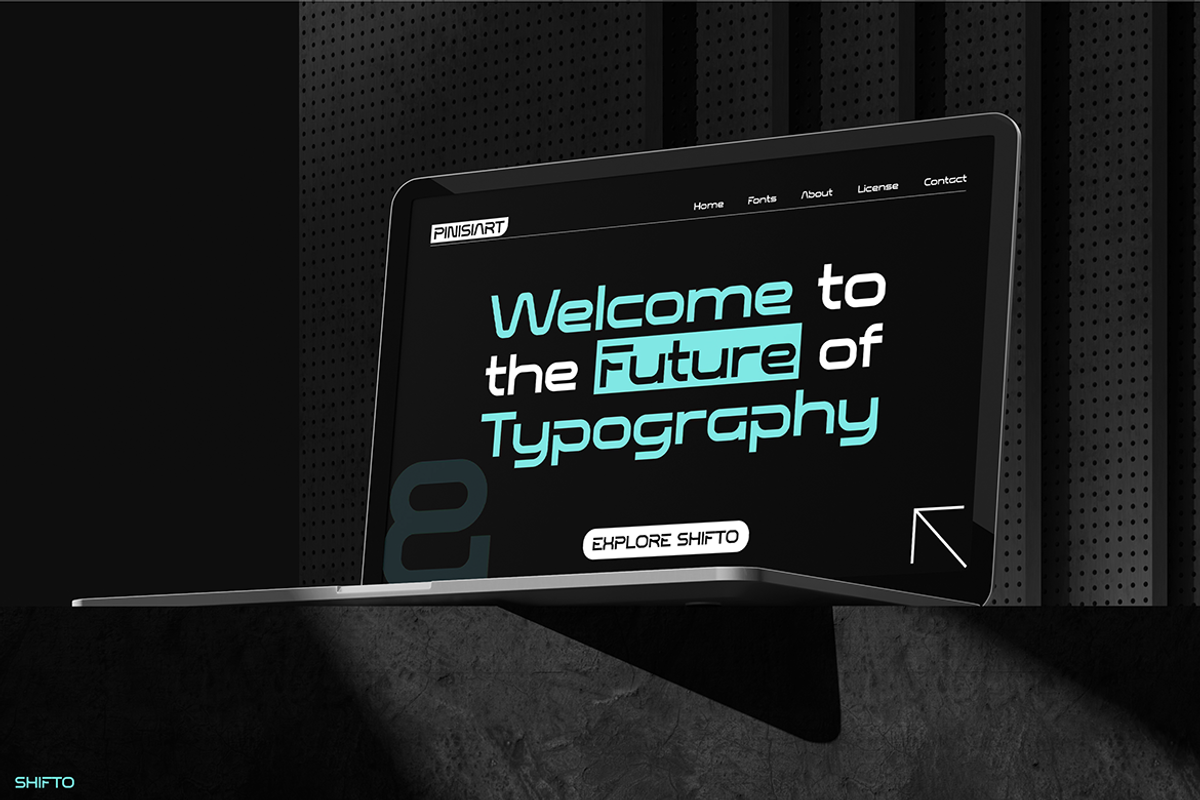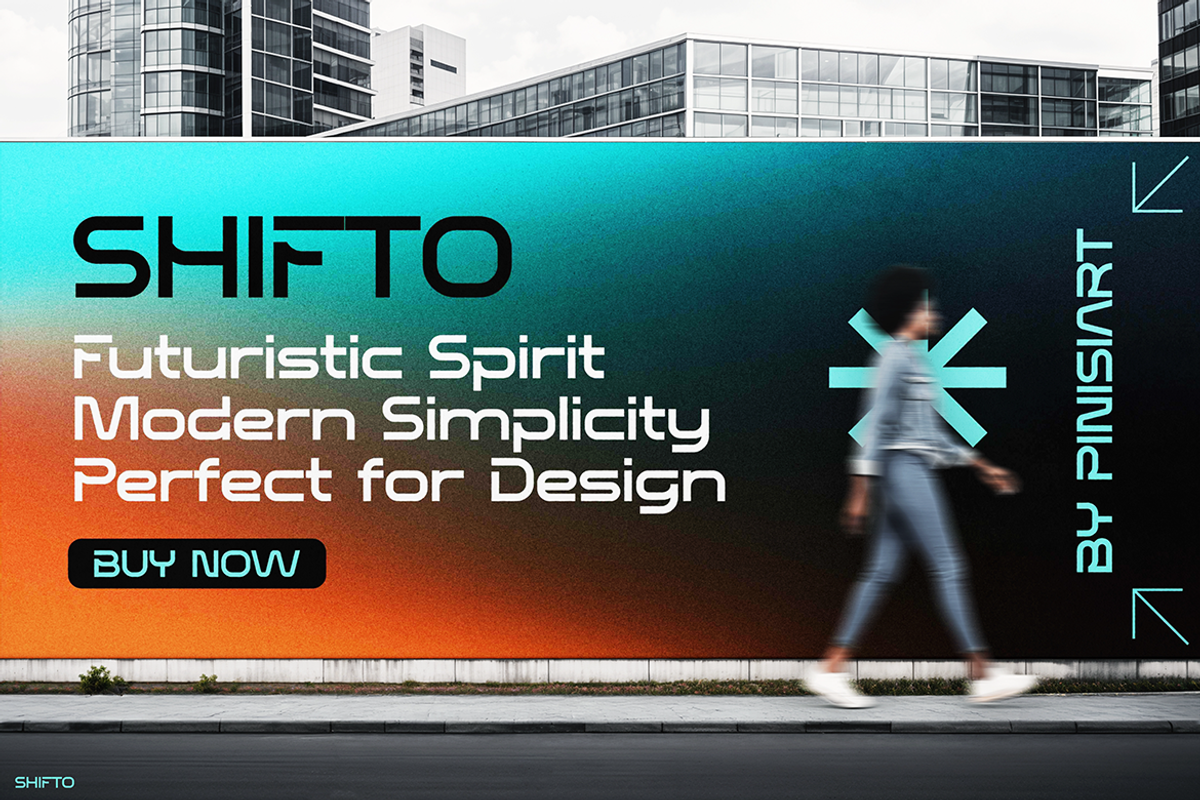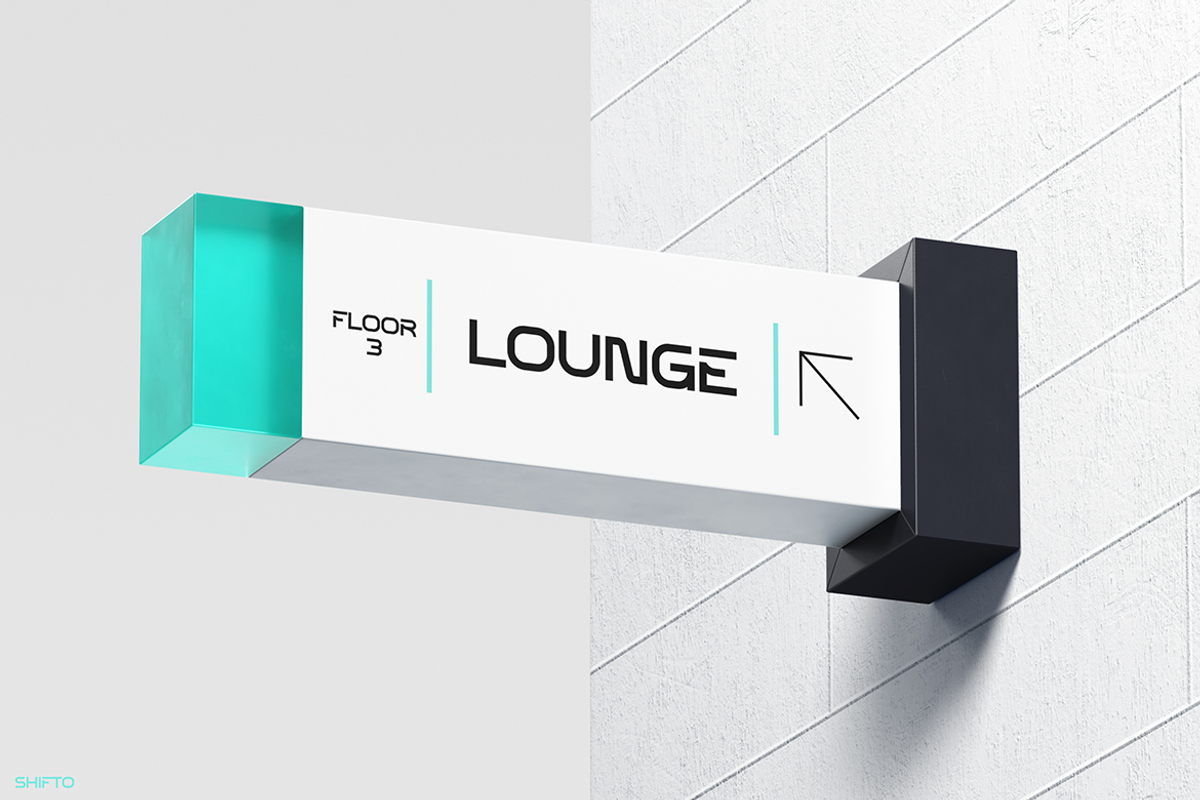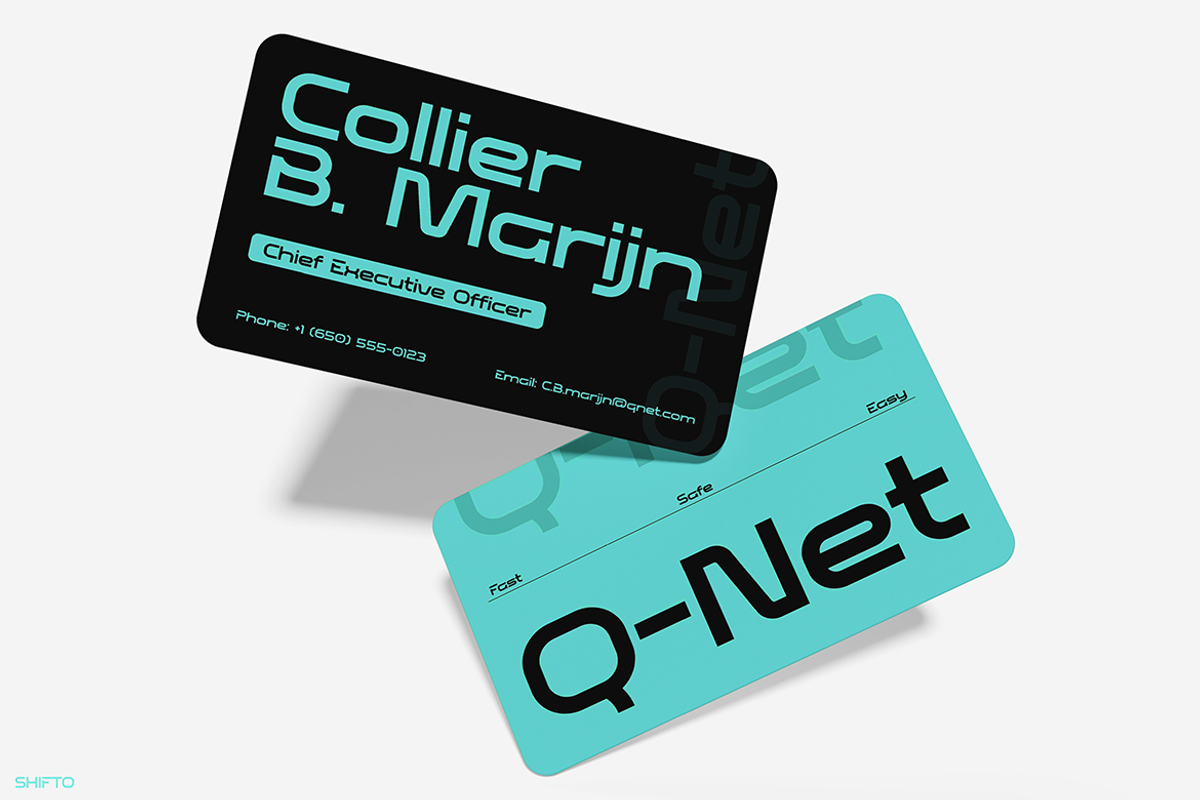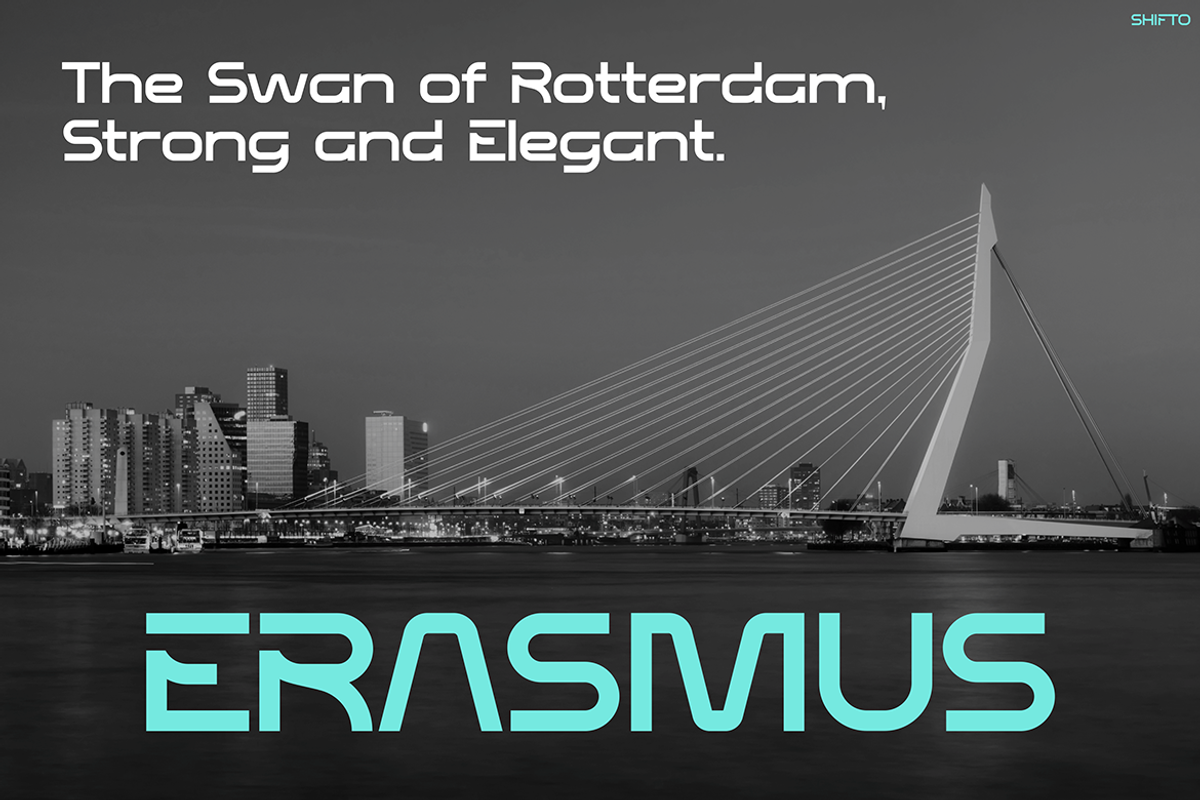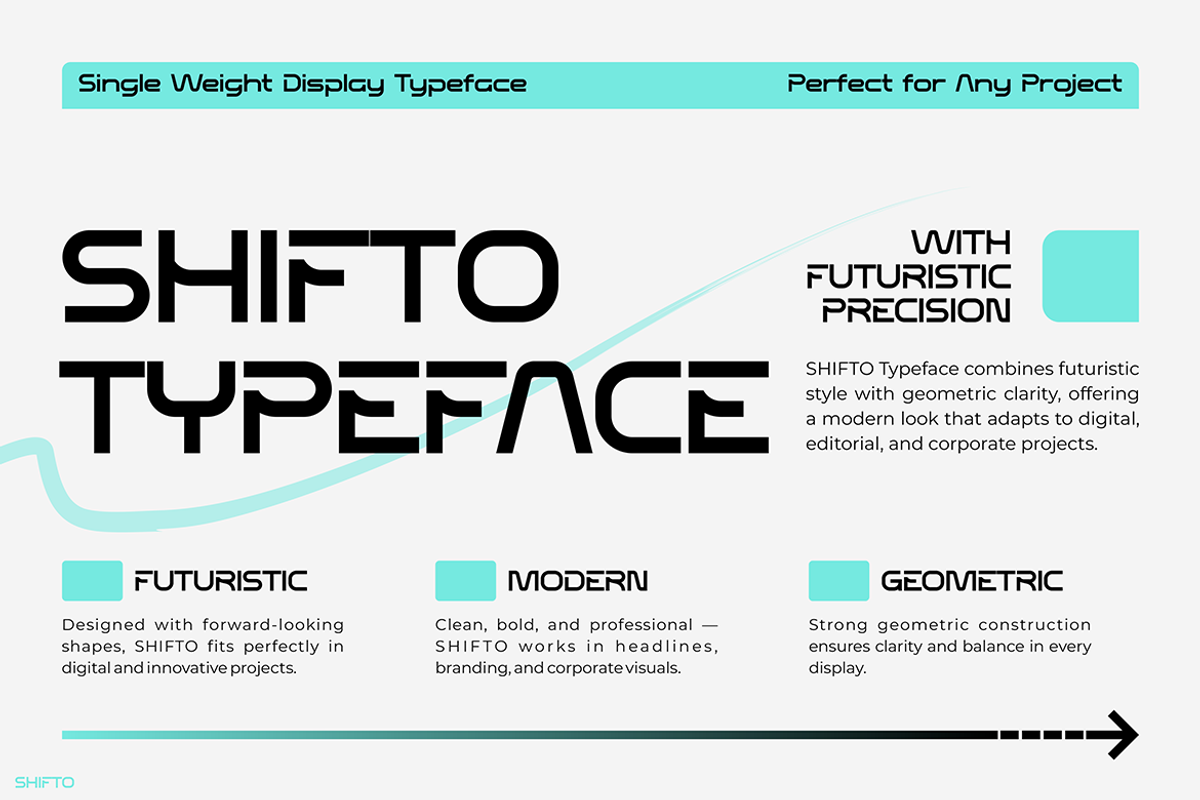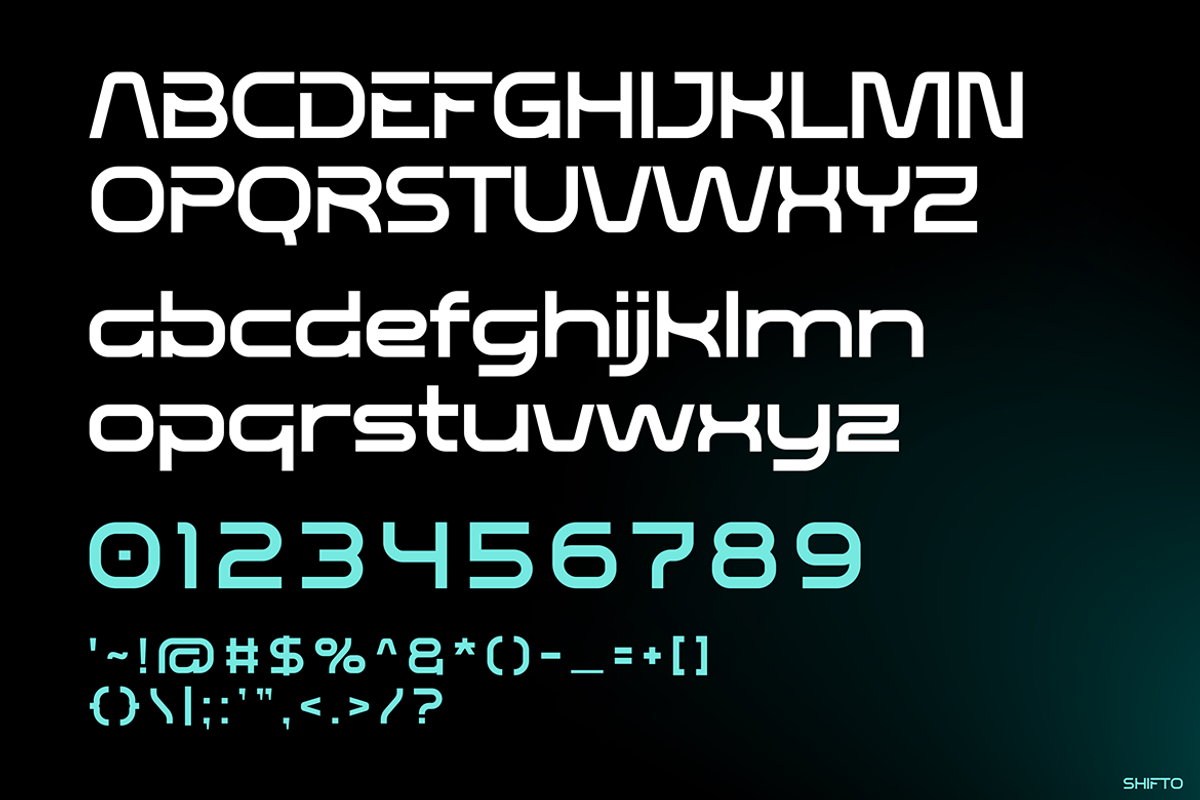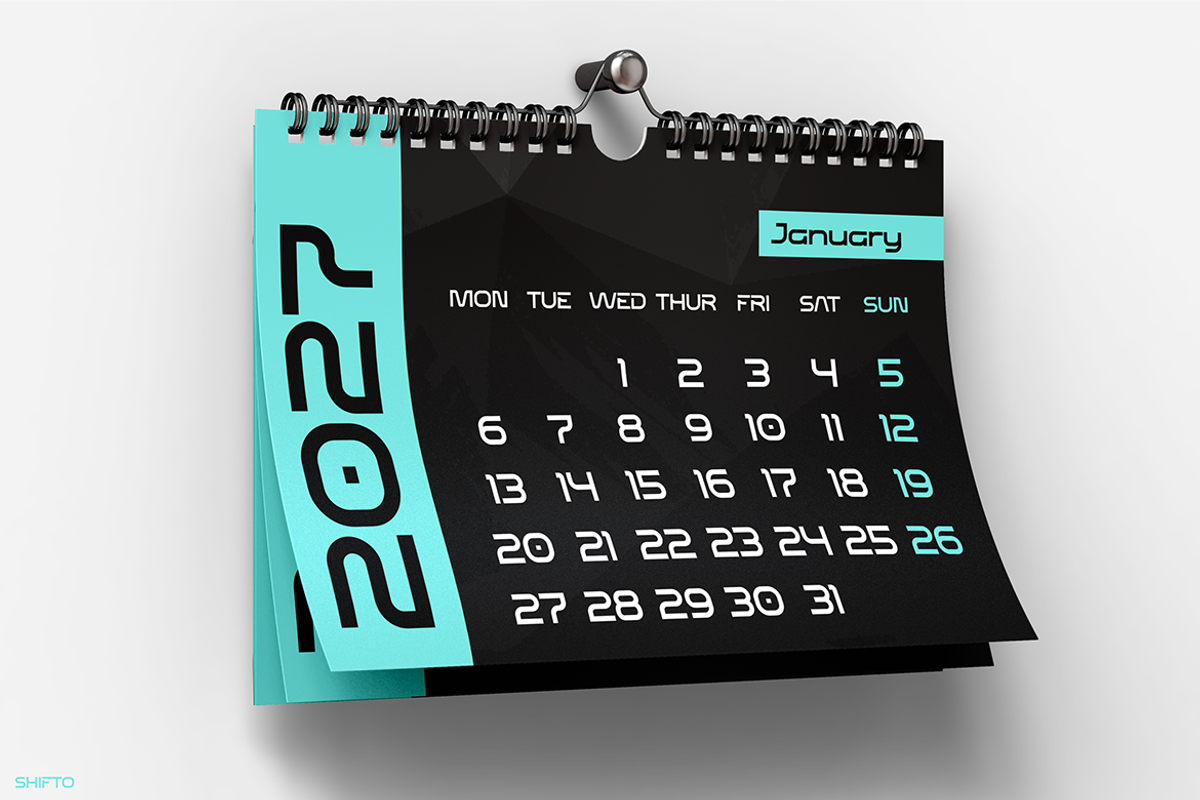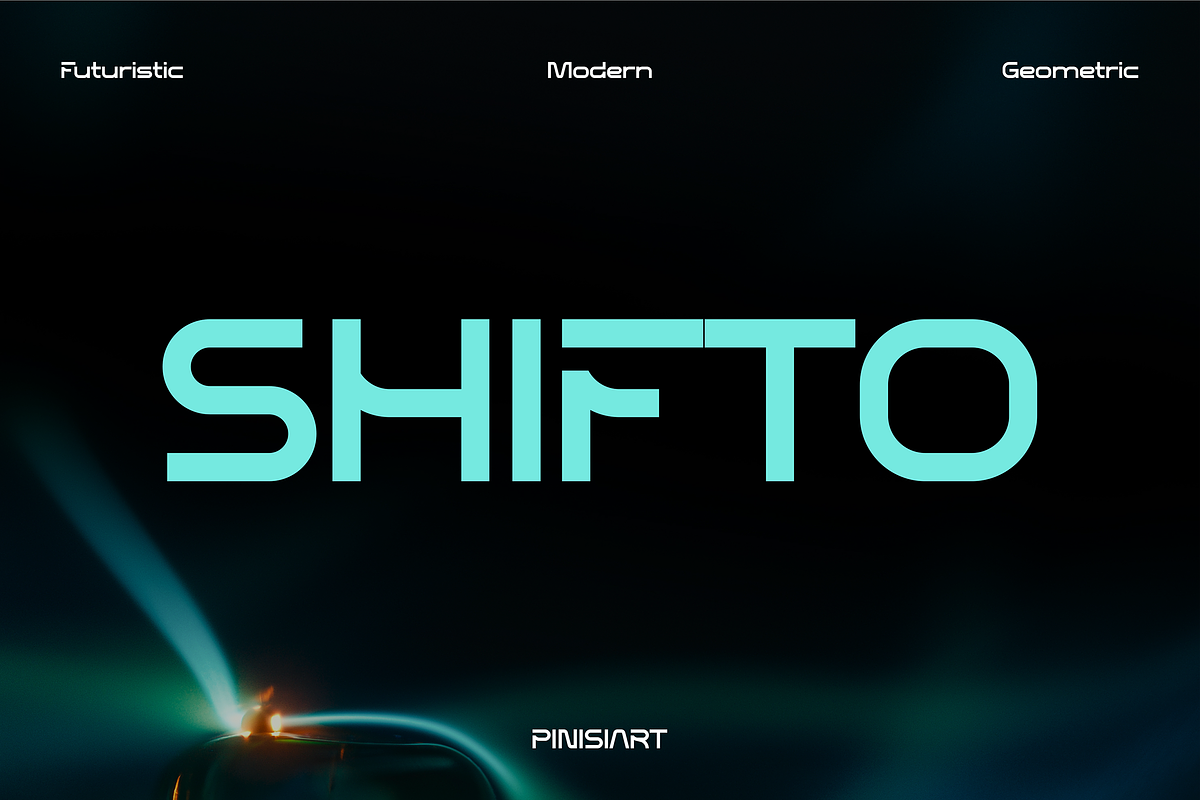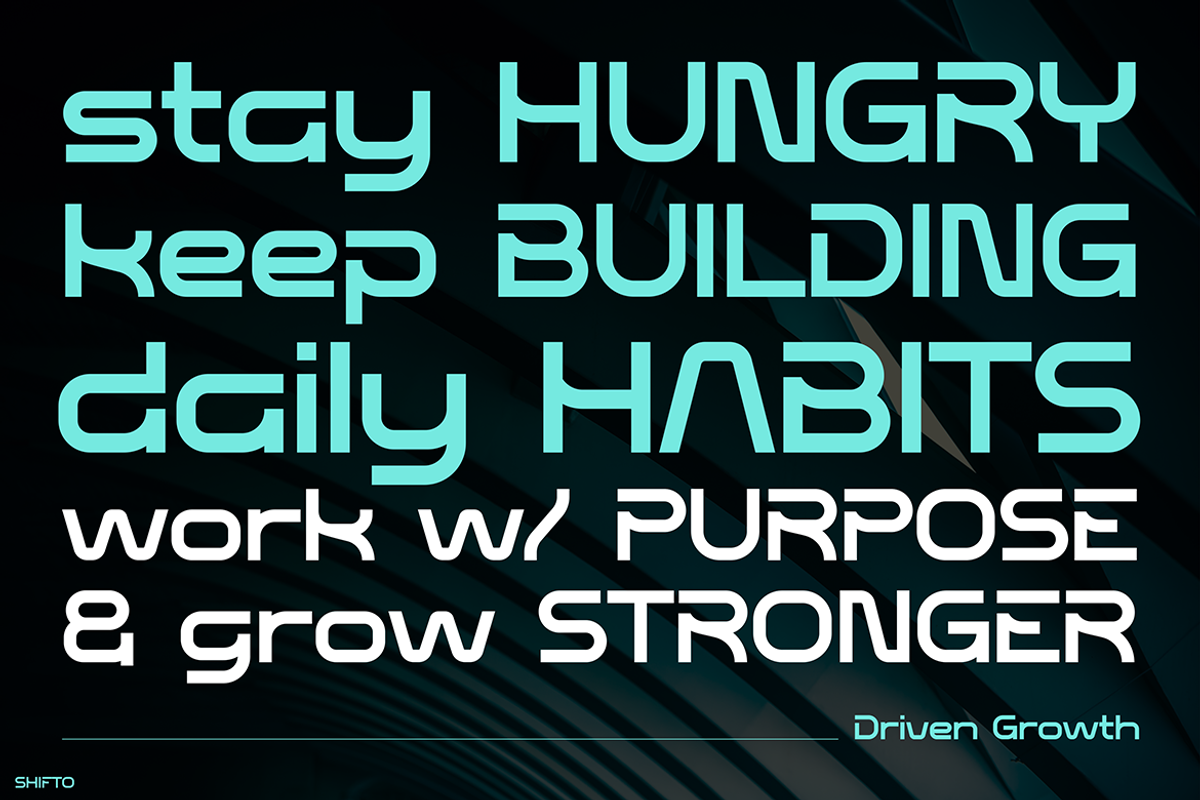
SHIFTO
Sport Font SHIFTO is not just another typeface. Instead, it is a bold statement of modern design and futuristic spirit. With its geometric structure, sharp edges, and dynamic letterforms, this font combines strength with easy readability. Moreover, its balanced shapes make it both functional and stylish. As a result, your projects will radiate confidence and motion.
In addition, the design blends sports-inspired energy with tech-driven elegance. Each letter carries a sense of movement, making it ideal for projects that demand attention. The bold forms highlight power, while the clean curves add clarity. Therefore, whether you are designing posters, digital ads, or branding materials, Sport Font SHIFTO delivers an instant modern, powerful, and stylish touch.